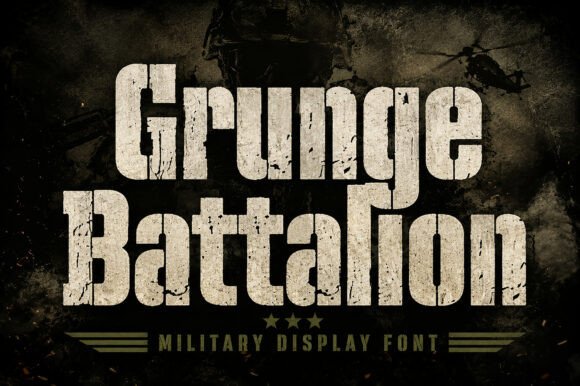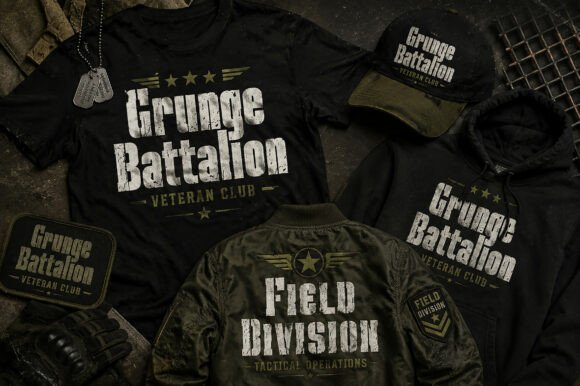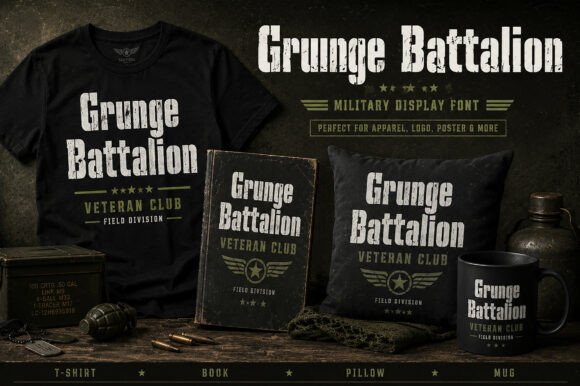
Introduction to Grunge Battalion Font
Command maximum visual authority and tactical grit with Grunge Battalion, a heavy-duty military display font engineered for high-impact combat layouts.
Drawing structural blueprint cues from vintage army stencil blocks and rugged battlefield branding, this typeface features extra-thick, compressed sans-serif letterforms built to hold the front line of your design canvas A raw, highly detailed distress texture is deeply eroded into every glyph, giving your text an immediate look of real weathered metal, tactical armor scraping, and urban warfare grit.
Key Features of Grunge Battalion Font
Why Choose Grunge Battalion Font?
Grunge Battalion Font offers exceptional quality and versatility, making it a valuable addition to your design toolkit. Whether you’re creating for personal projects or commercial use, Grunge Battalion Font delivers professional results.